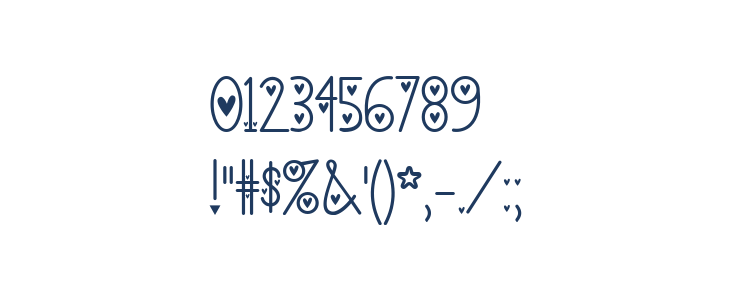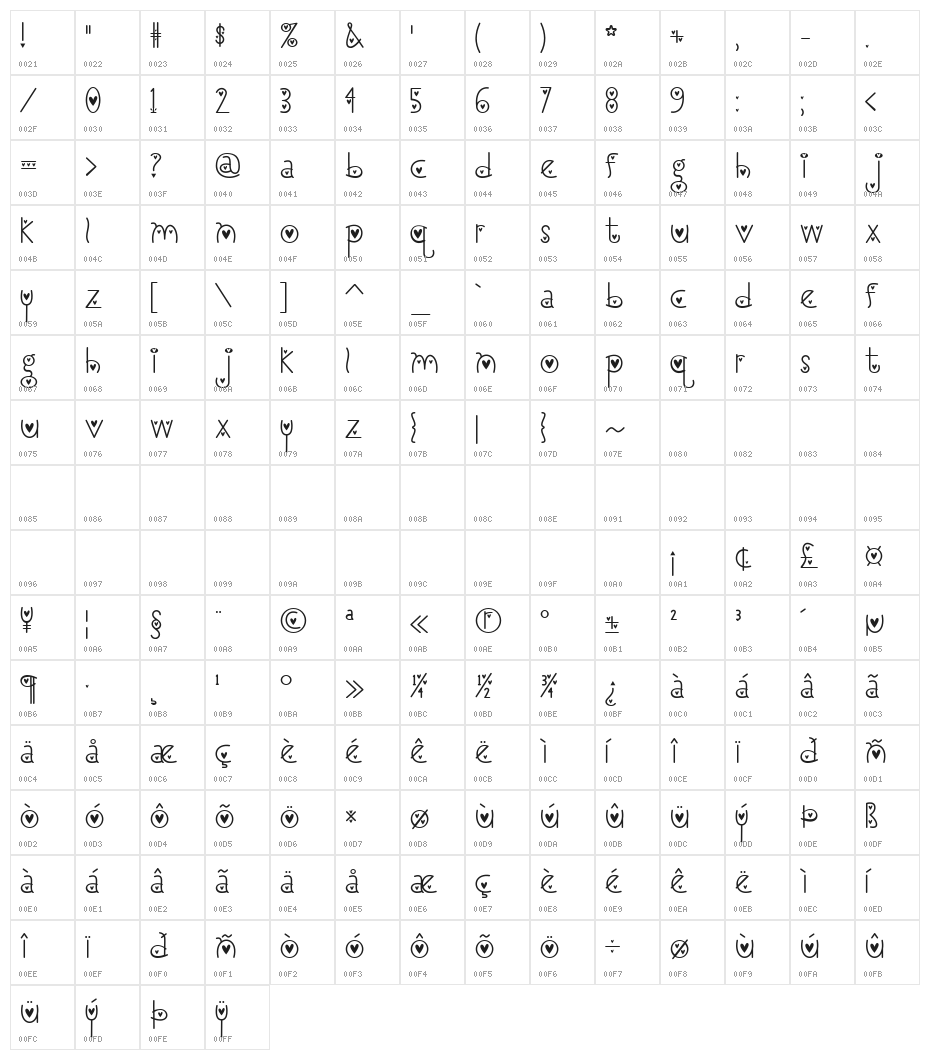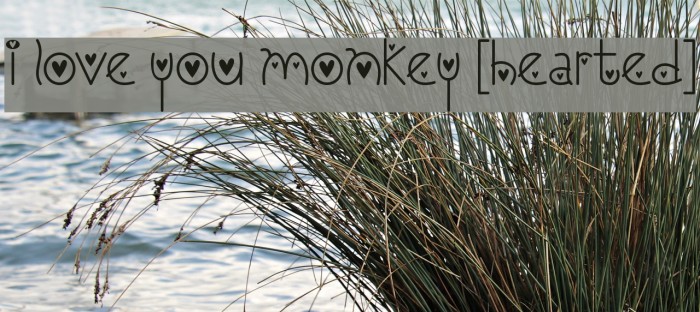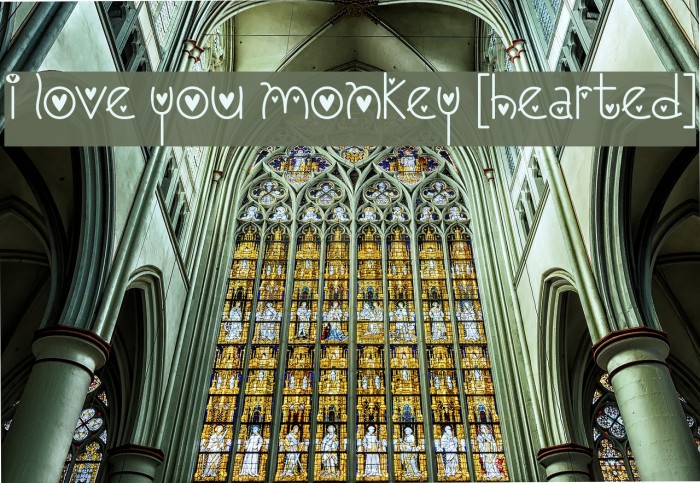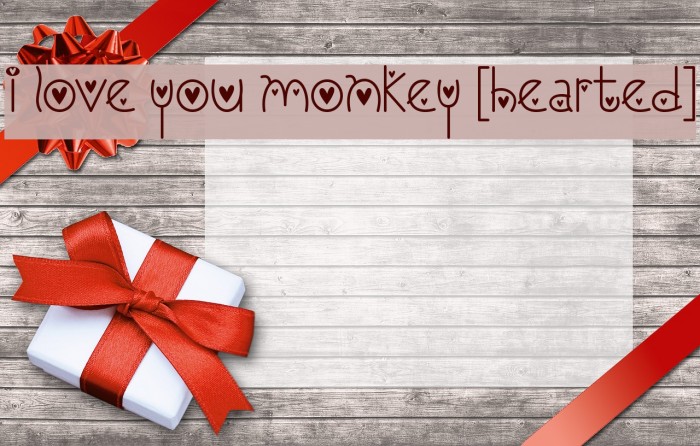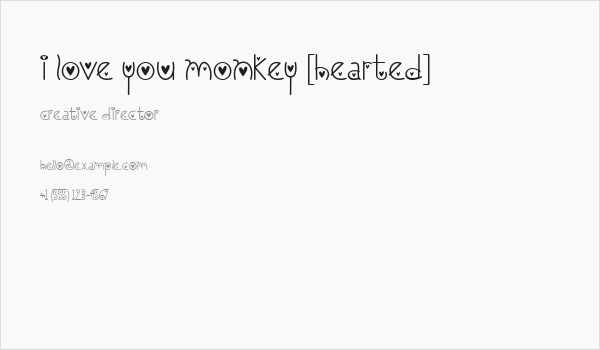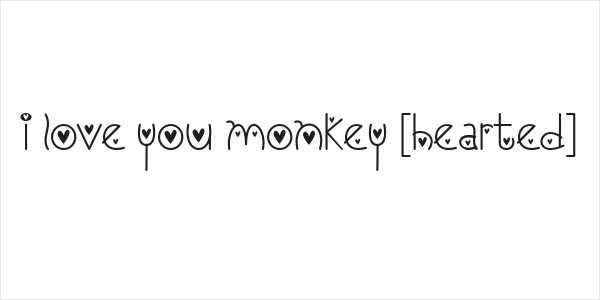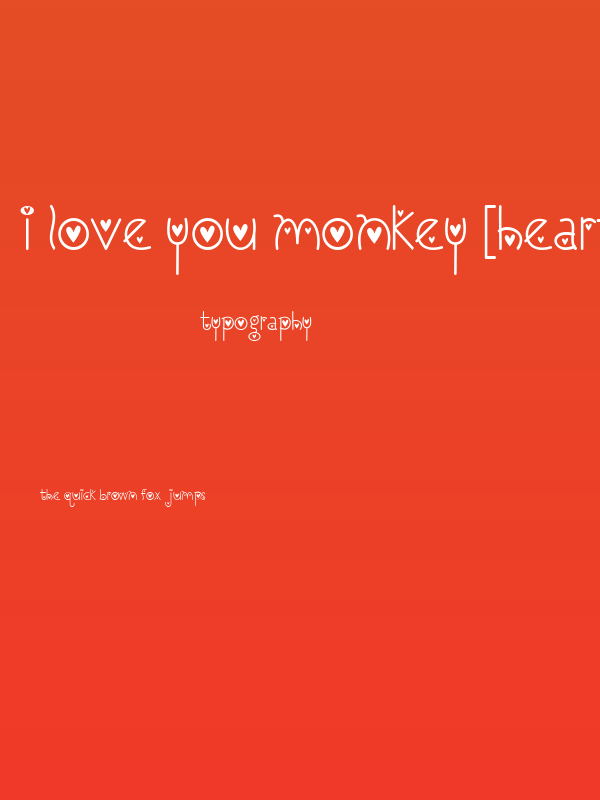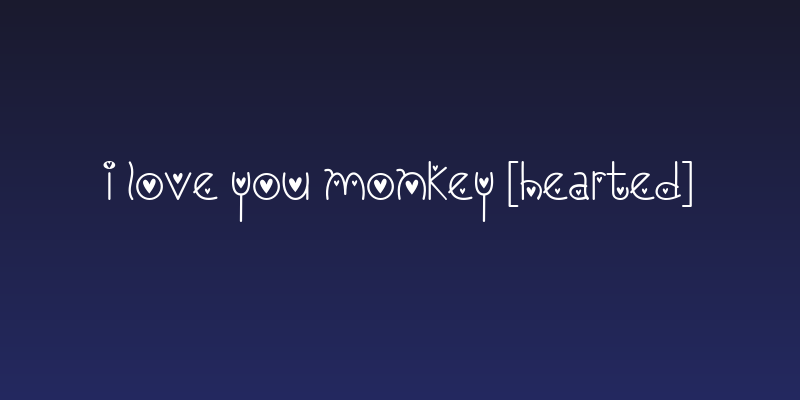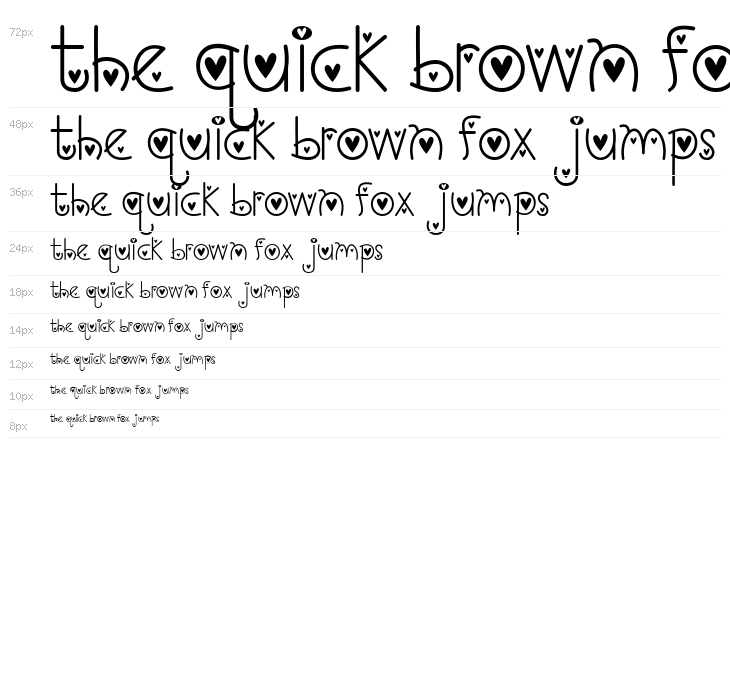
I Love You Monkey [Hearted] Font
I Love You Monkey [Hearted] Description
This whimsical and playful font features heart motifs integrated into the design of each character, creating a unique and charming appearance. The letters are rounded and have a hand-drawn quality, with consistent heart shapes appearing in the center of the letters and numbers. This decorative style adds a sense of fun and romance, making it ideal for projects that require a touch of personality and warmth. The font maintains a consistent stroke width, contributing to its cohesive look, while the spacing between characters is balanced to ensure readability.
Use CaseLogos, Invitations, Greeting Cards
Proposed ProjectsIdeal for Valentine's Day cards, wedding invitations, children's book covers, and playful branding projects.